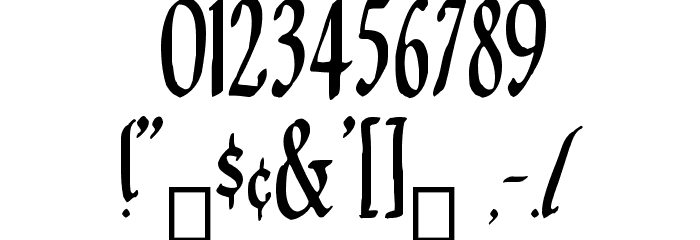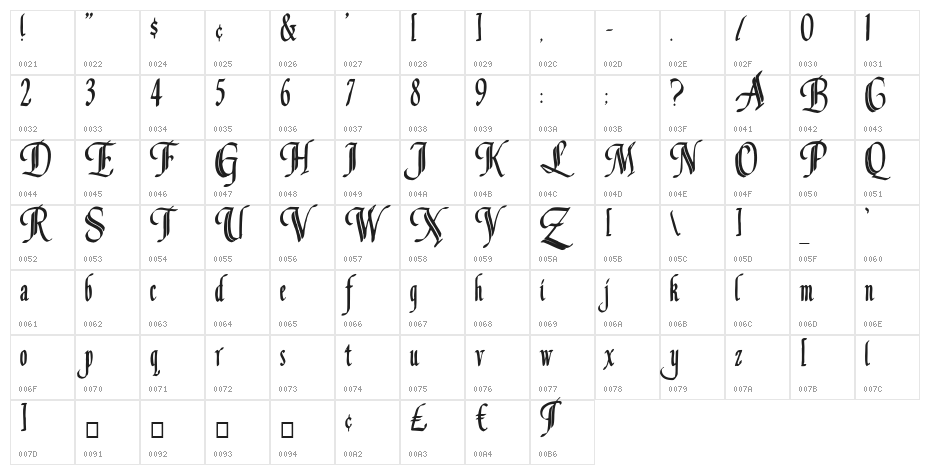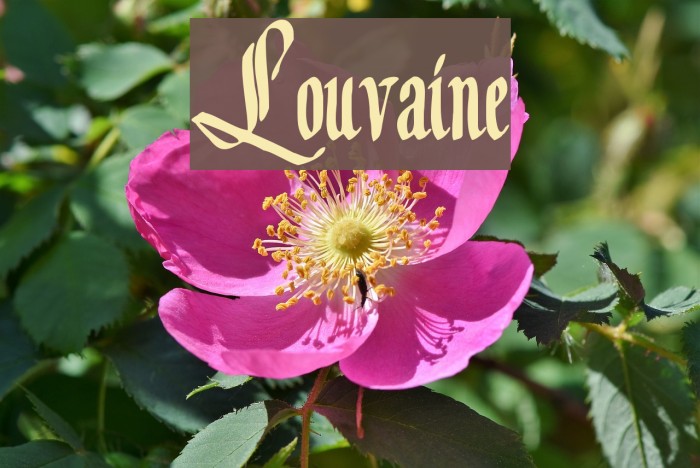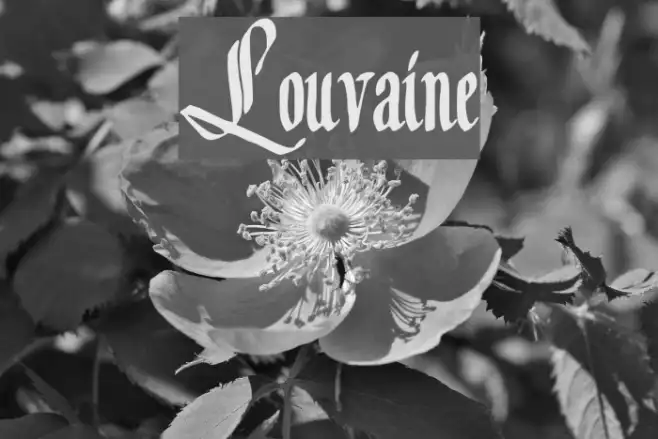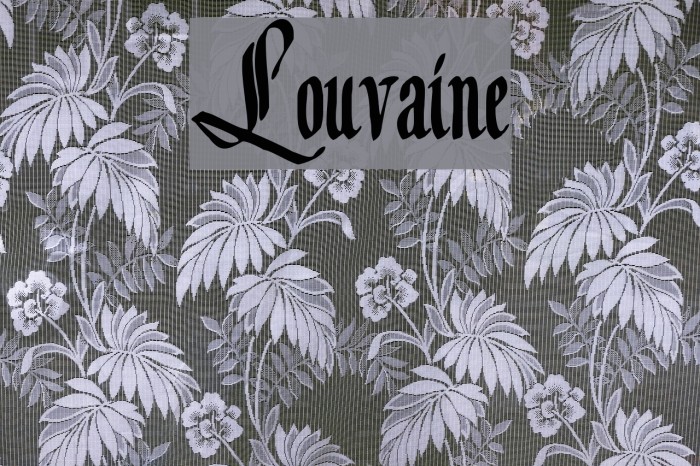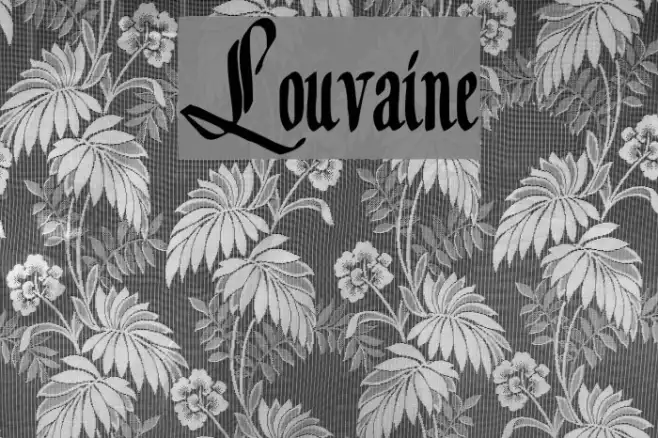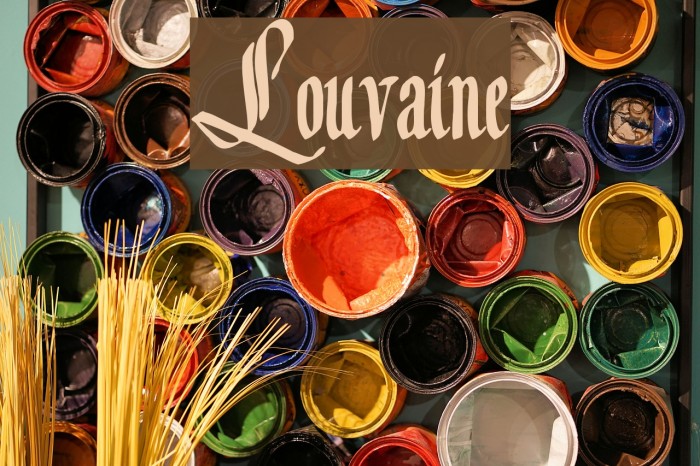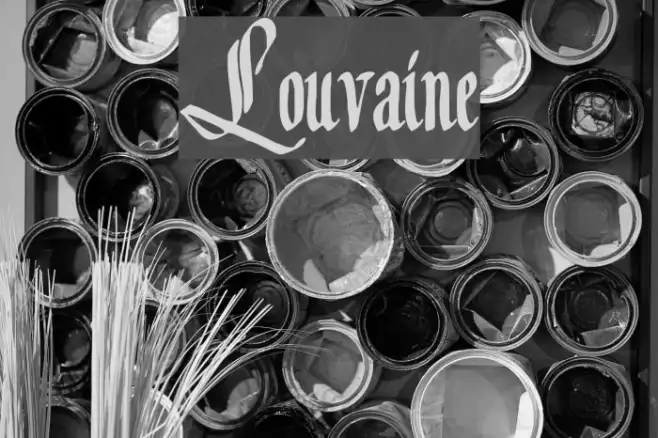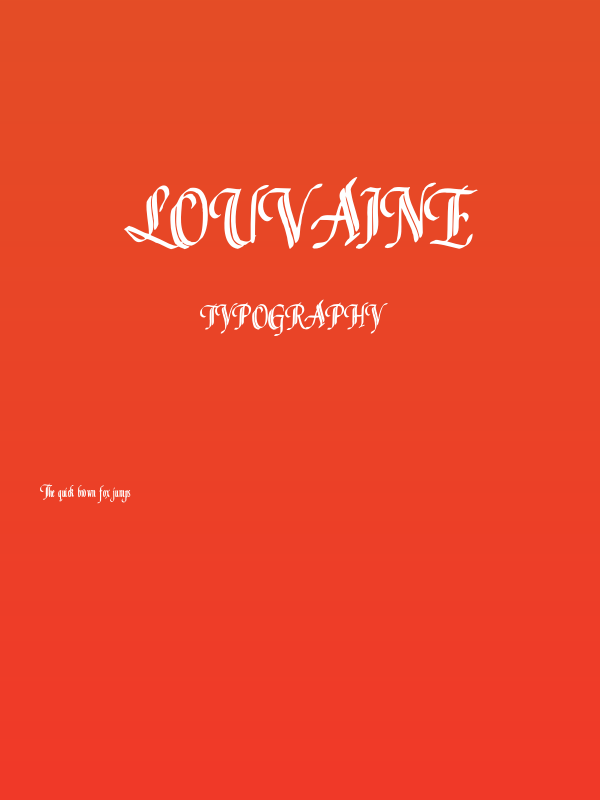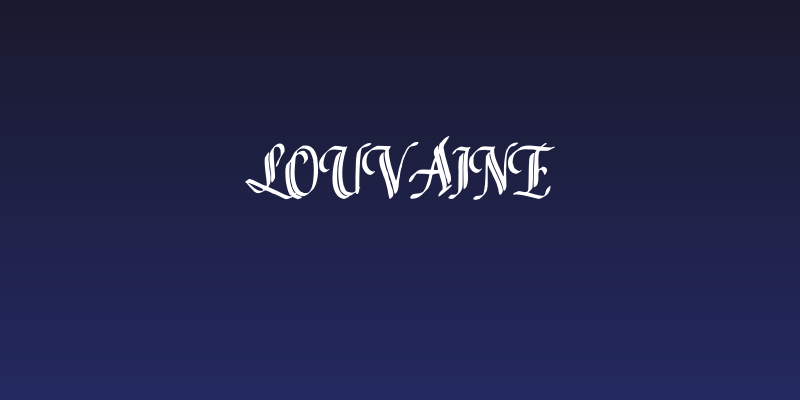
Louvaine Font
Louvaine Description
This font features a dramatic and ornate style, reminiscent of traditional calligraphy with a modern twist. The uppercase letters are characterized by sharp, angular strokes and elegant flourishes, giving them a regal and authoritative appearance. The lowercase letters maintain the same level of intricacy, with a slightly more condensed form that enhances readability. The numerals are bold and consistent, matching the overall aesthetic of the alphabet. Special characters are designed with the same attention to detail, ensuring a cohesive look across all glyphs. This font's unique style makes it suitable for projects that require a touch of sophistication and historical flair.
| Proposed Projects | Ideal for wedding invitations, historical documents, luxury branding, and decorative signage. |